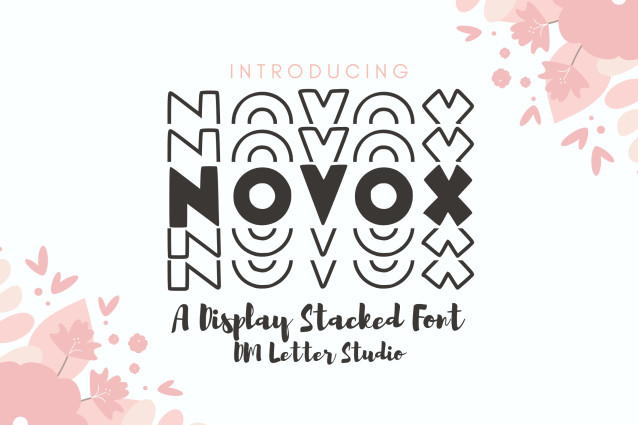
Novox Stacked Font
Novox Stacked Font is a powerful, all-caps display font with a compact and vertically aligned design. Crafted for maximum impact, this typeface brings boldness and order to logos, posters, signage, sports merchandise, and urban branding. Its stacked orientation gives a modern, architectural feel, making it ideal for space-efficient headlines and striking graphic layouts.